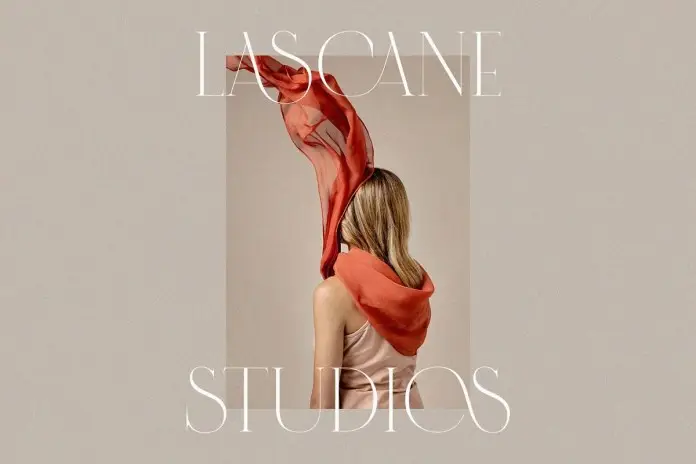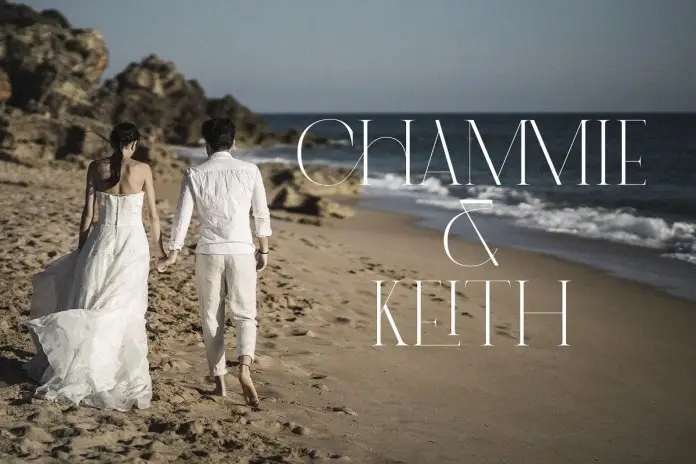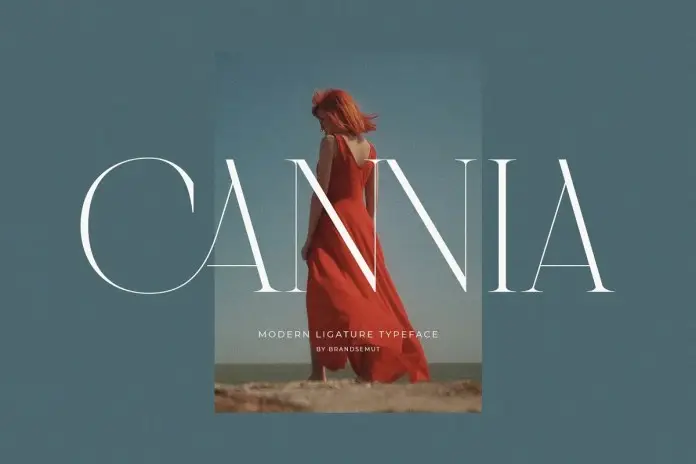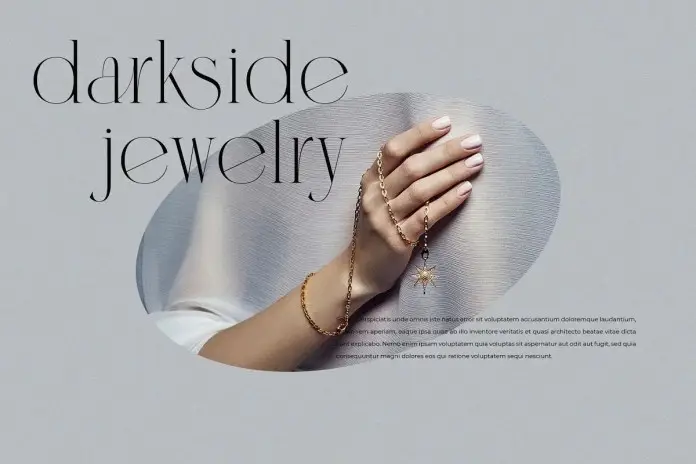
Cannia Serif Font
The Cannia Serif Font is a beautifully crafted typeface that combines elegance with readability. Ideal for a variety of applications, this font is perfect for branding, logos, web design, print materials, and user interfaces.
• Weights: Light, Regular, Bold
• Utilize Cannia Serif for headers and titles to add a touch of sophistication.
• Pair it with sans-serif fonts for a modern look in your designs.